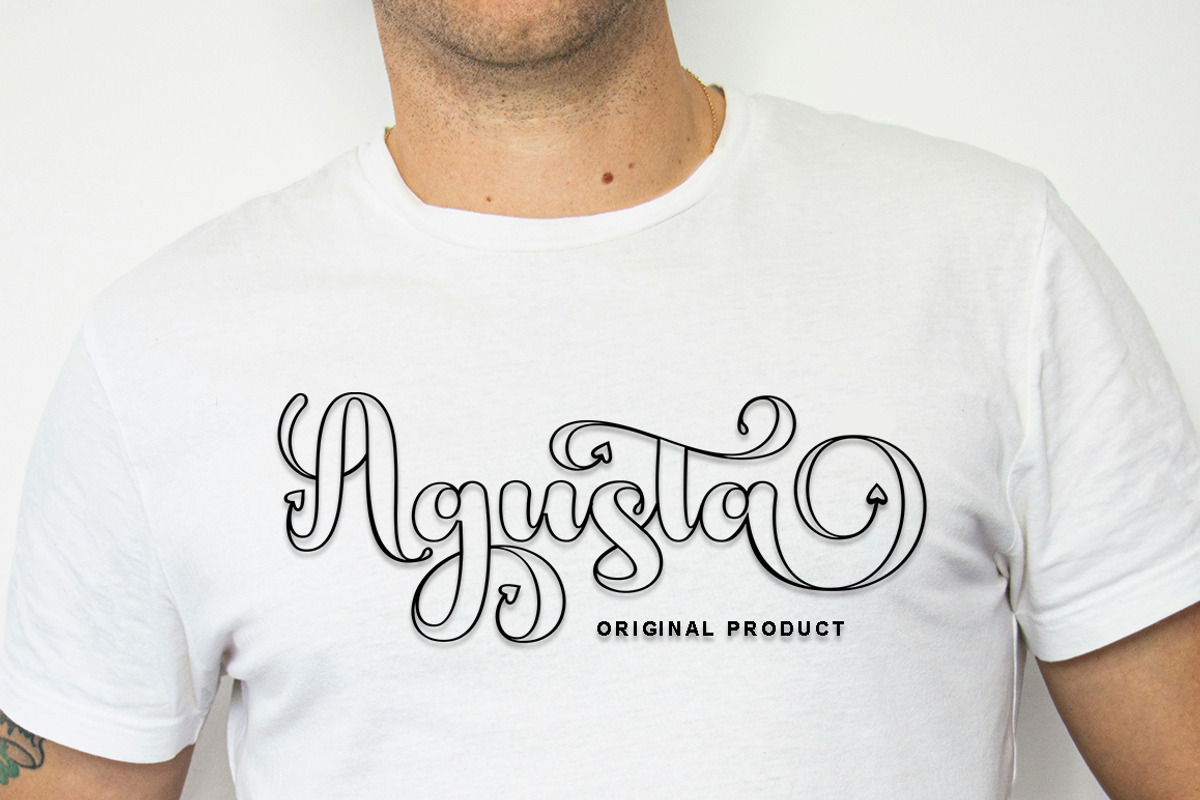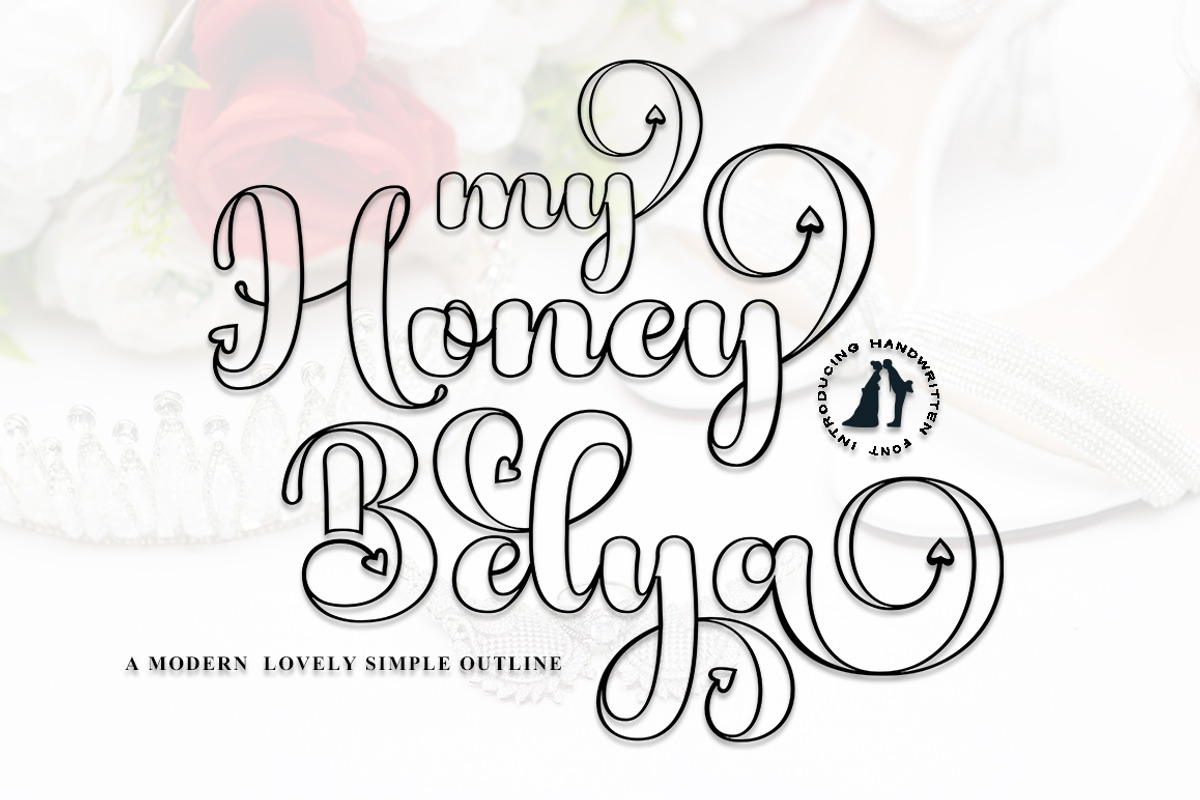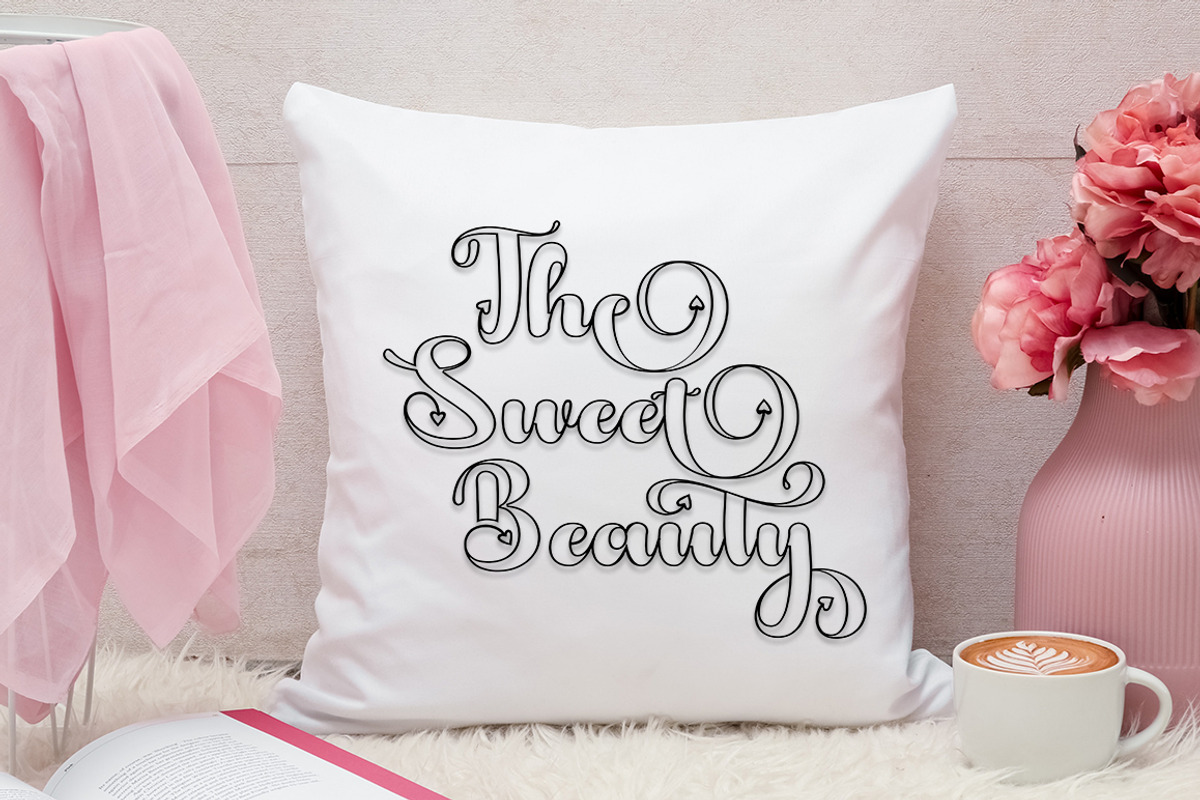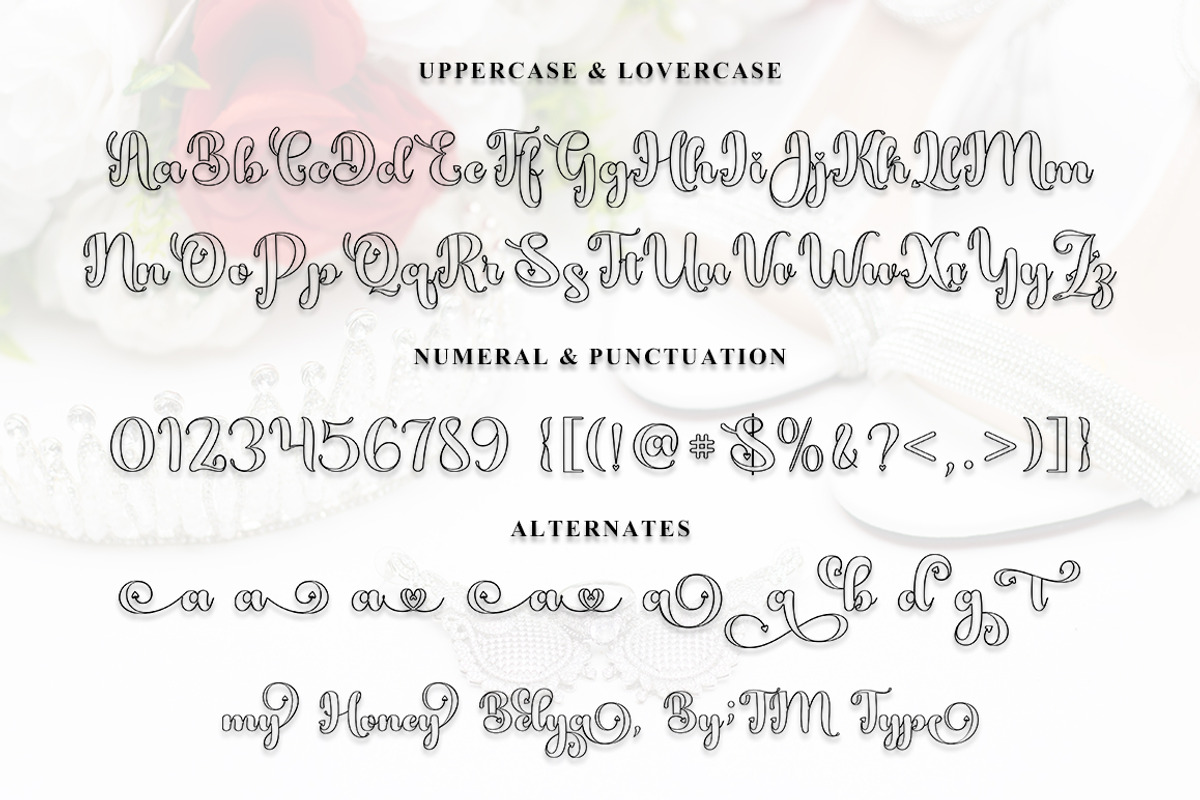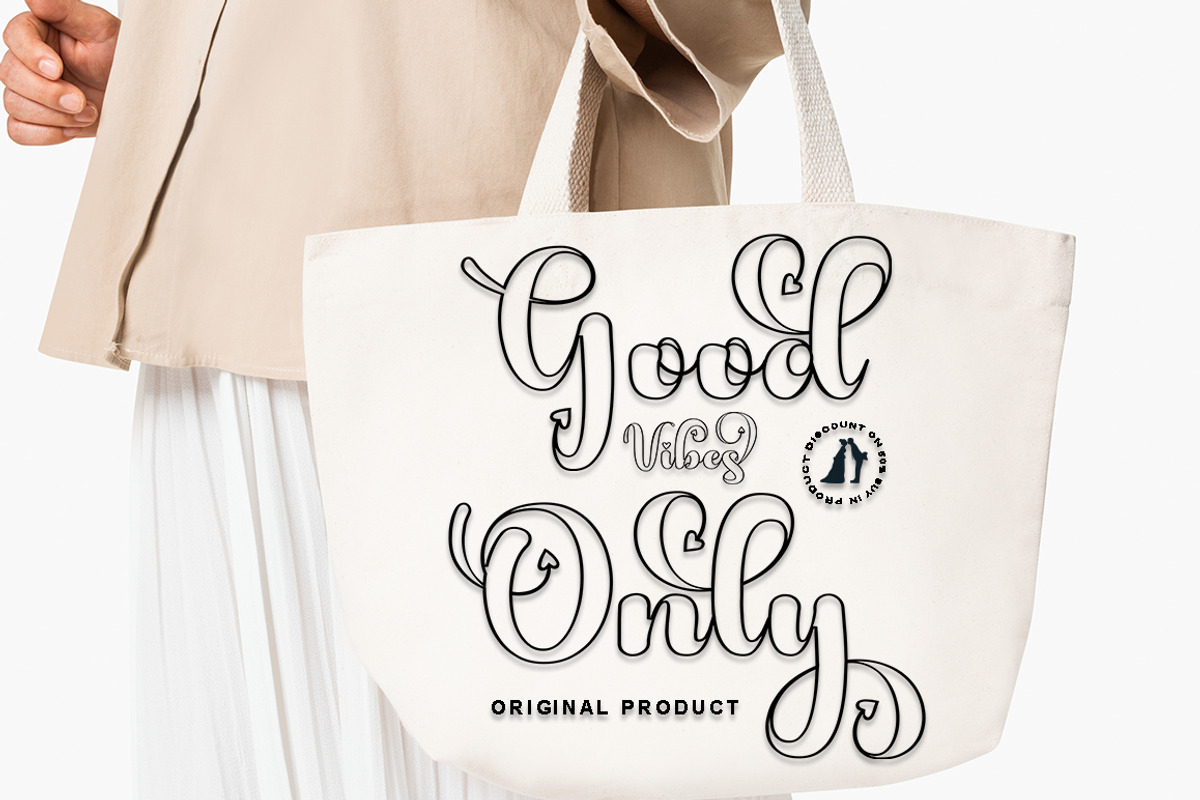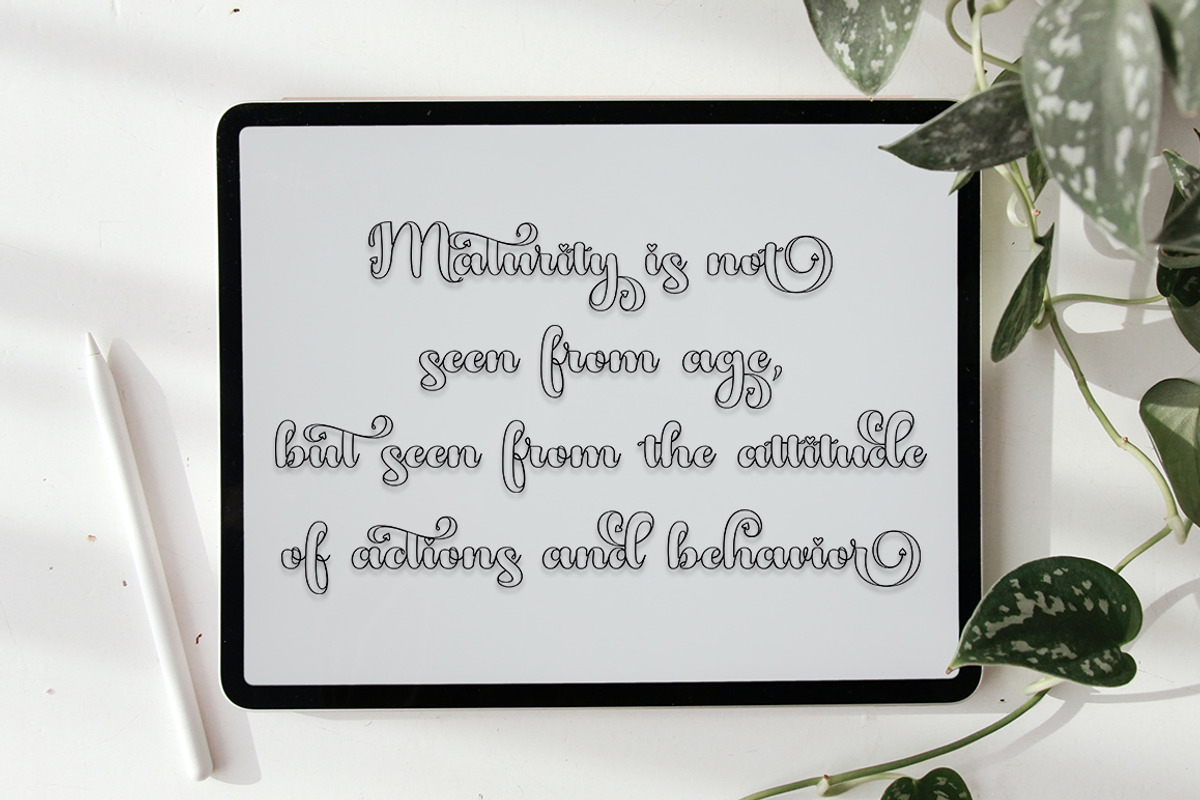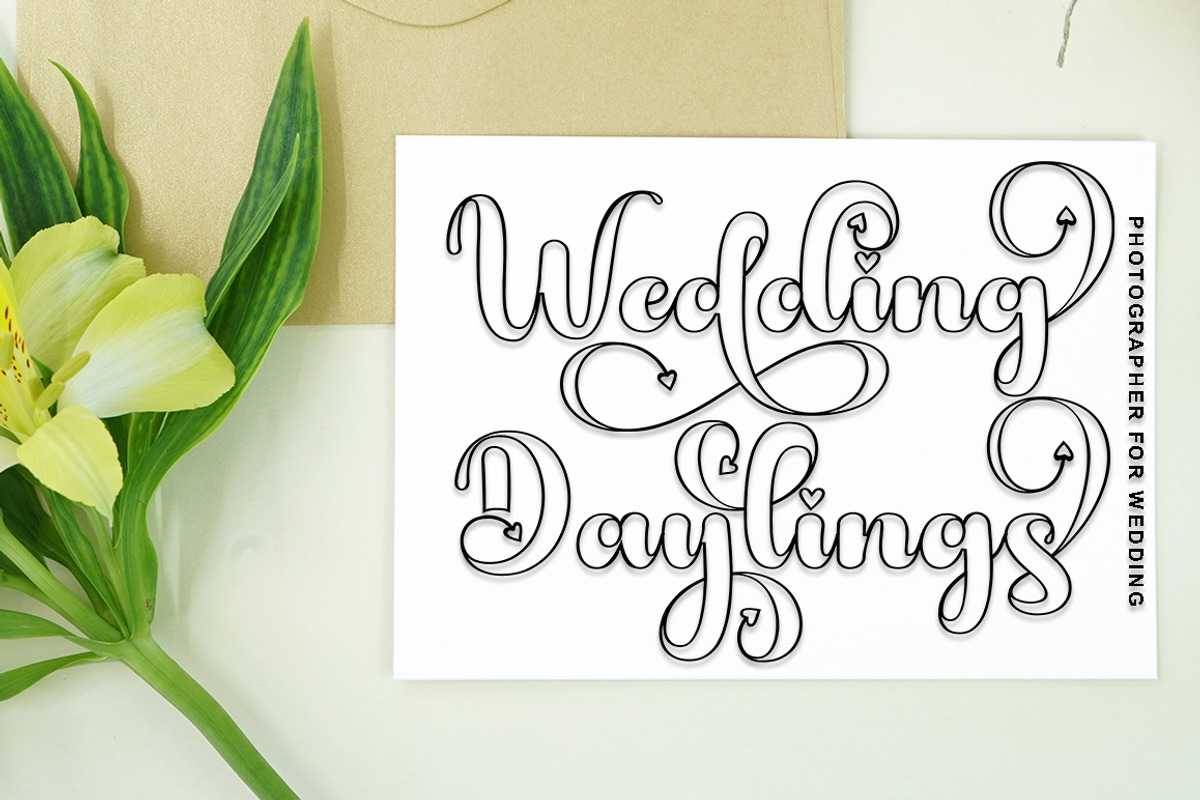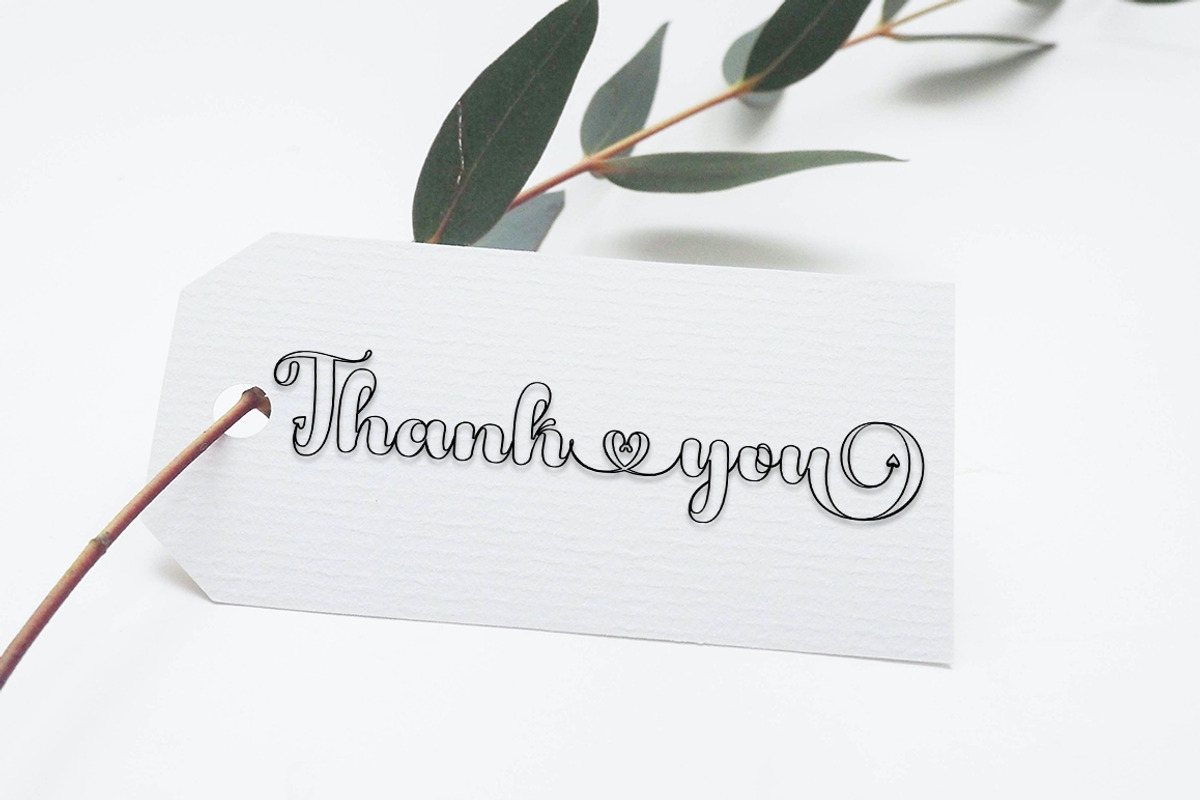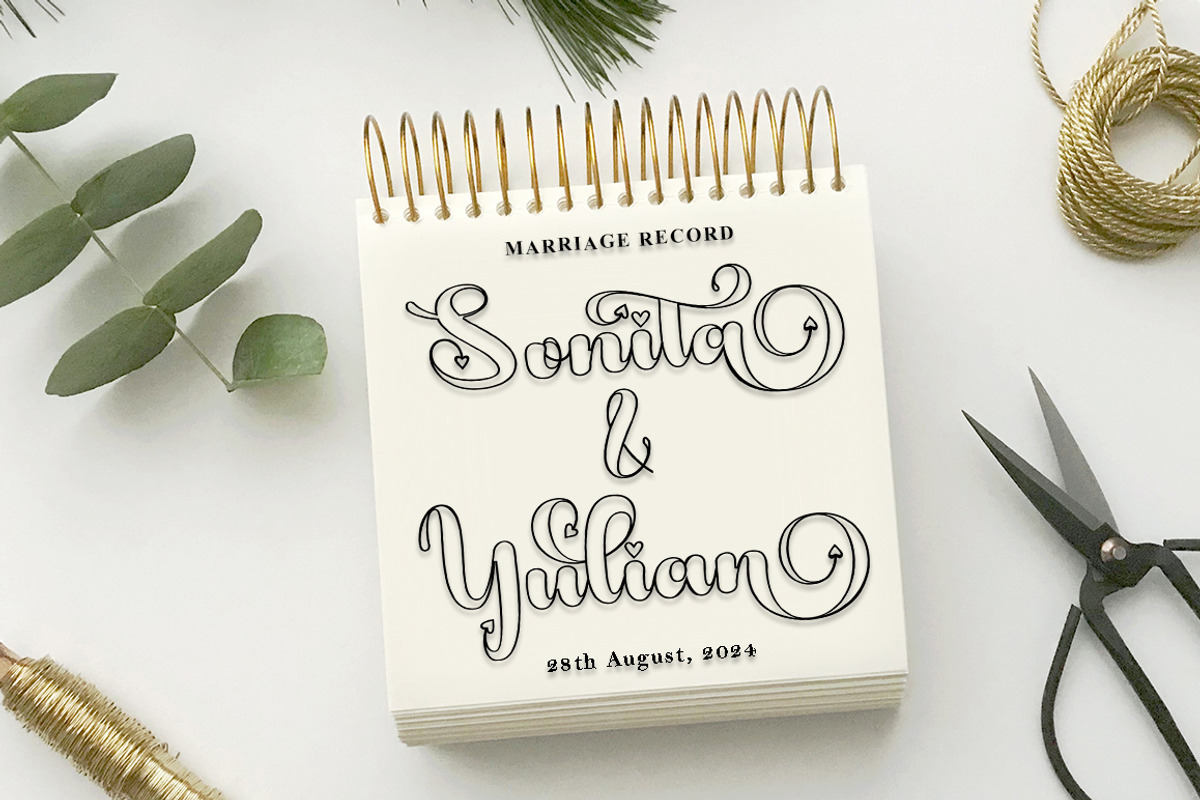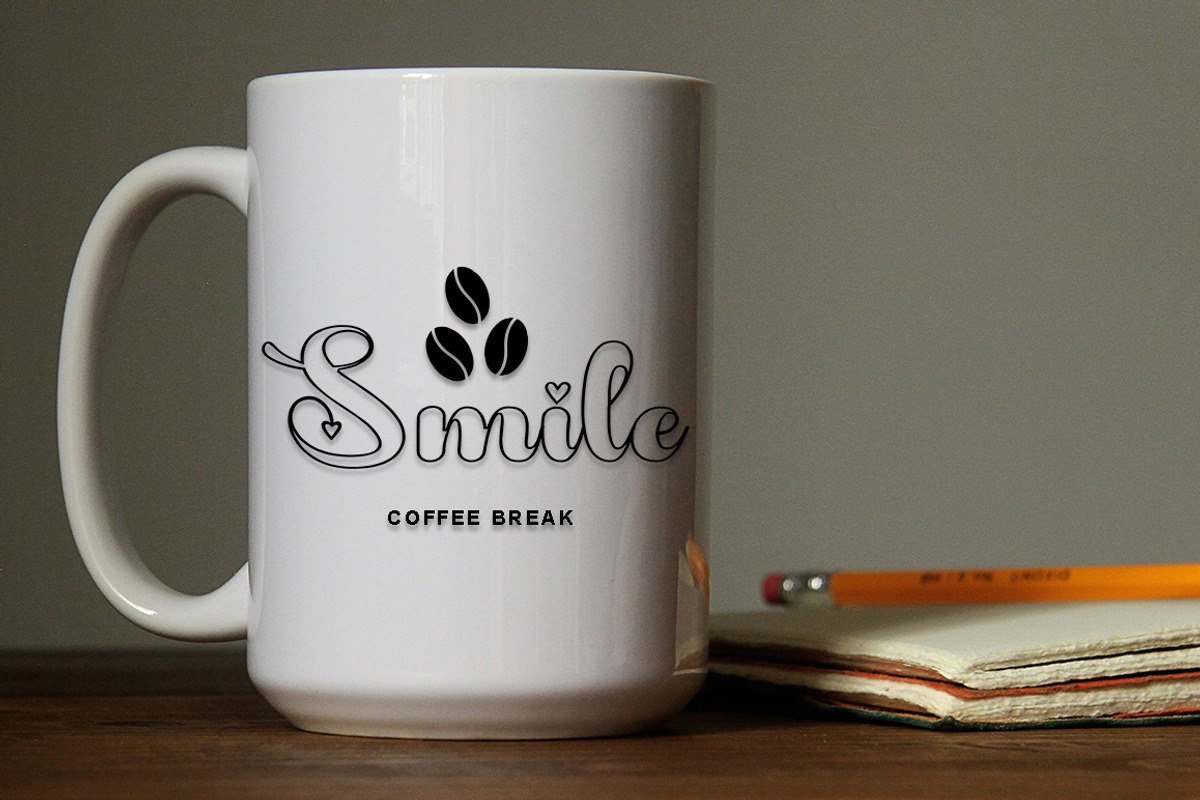
My Honey Belya
Hello everyone, I would like to introduce my newest font My Honey Belya is a beautiful modern calligraphy typeface, I hope you are interested in this font, if you want to use it for your work.
This font can be used easily and simply because there are many features in it. contains a complete set of lowercase and uppercase letters, a wide variety of punctuation, numbers, and multilingual support.
The font also contains many ligatures and contains many alternative Style Sets such as alternative strokes to join two words, for example: Thank-you.
My Honey Belya is very suitable for today's emerging market design, this font has stylish, trendy, natural and soft fonts, with this font you can take advantage of every occasion is a great way to highlight the celebration at its best, because it will be a support for the cause.
such as wedding invitations, branding, parties, graduations, birthdays, social gatherings, spring, etc.